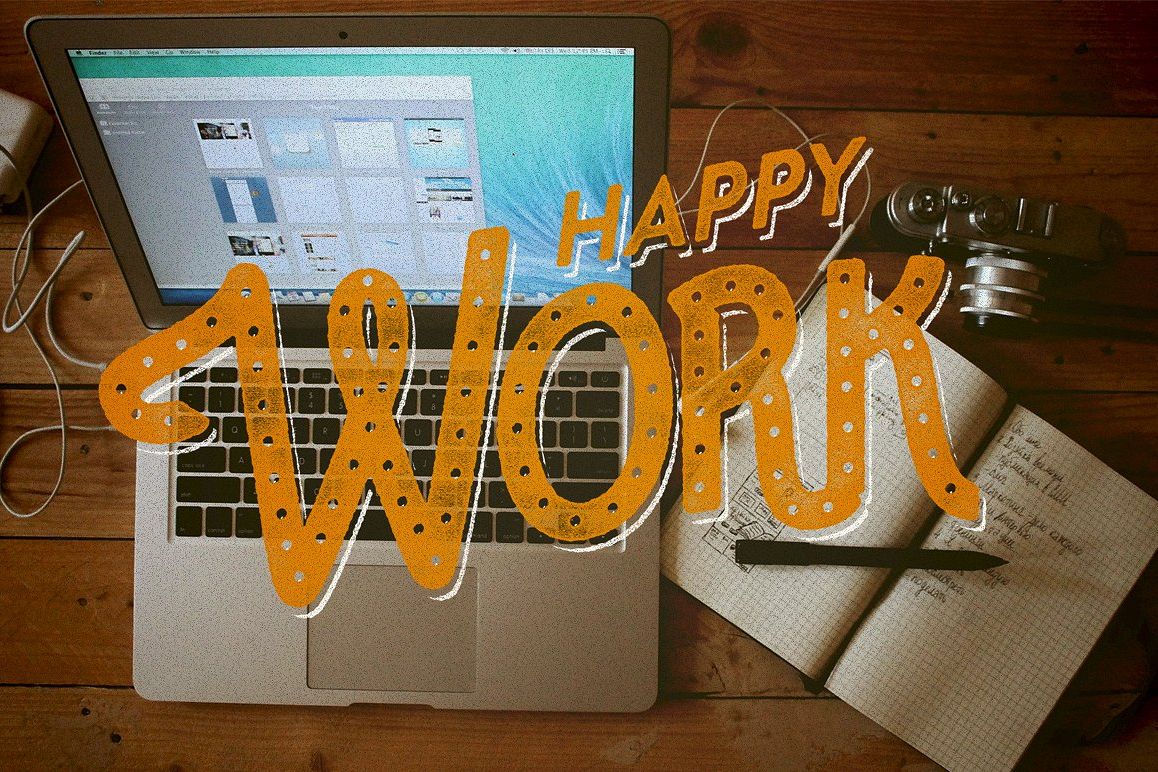
Ginusto Family
GinustoSanAdot
GinustoSanDot
GinustoBlok
GinustoBlok1
This is Ginusto Family typeface font made by hand. with alternate characters and ornaments that will provoke your creativity and make it easier to make the awesome work.This is what you'll be get :